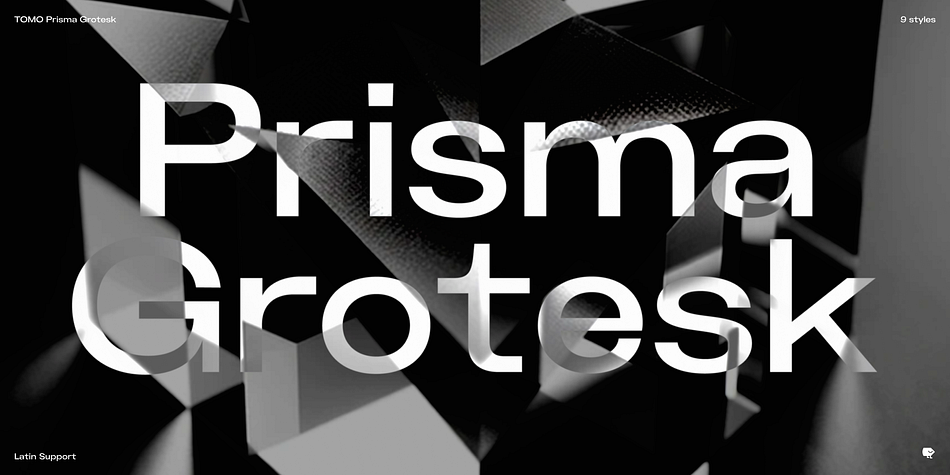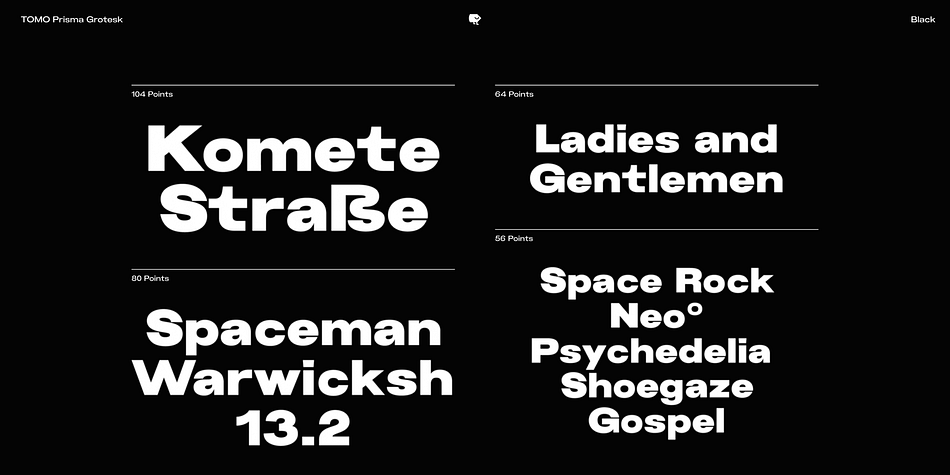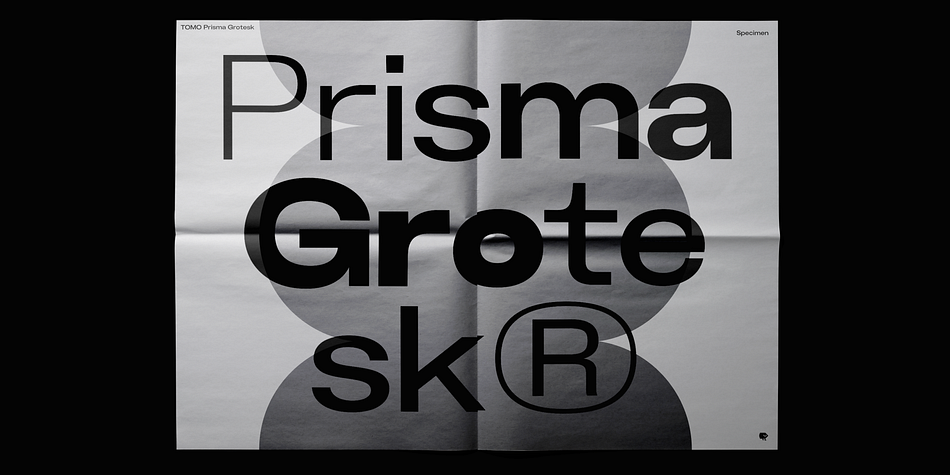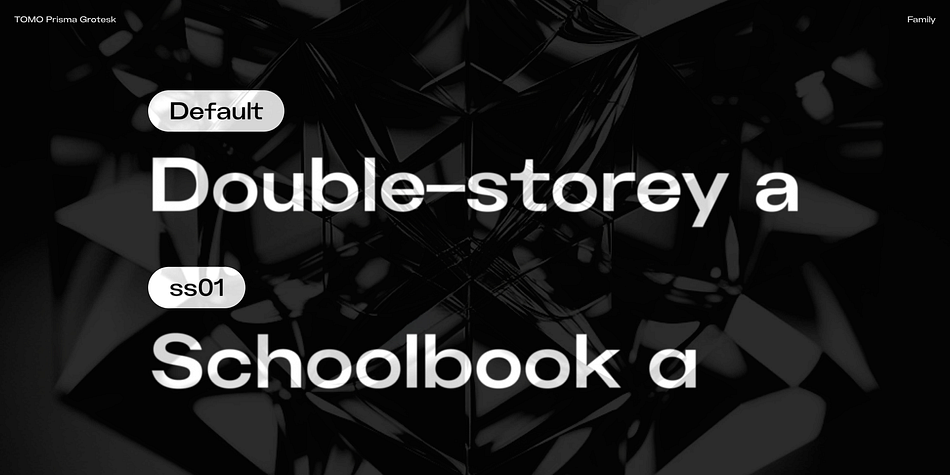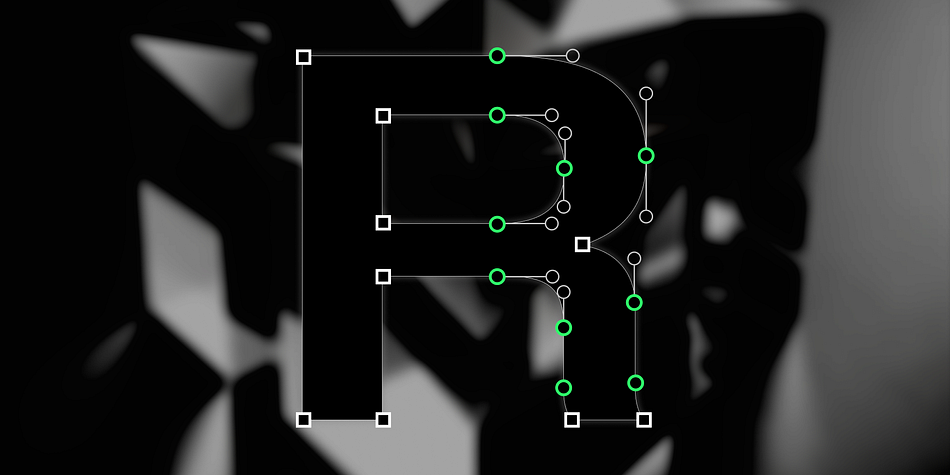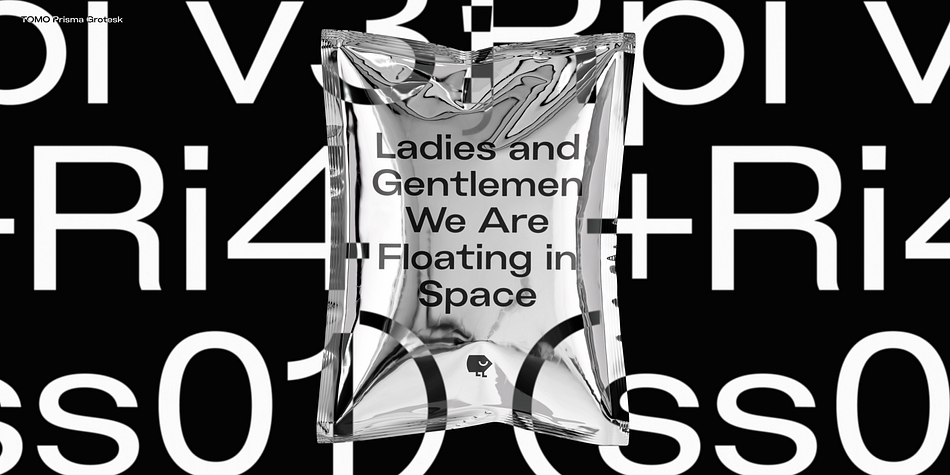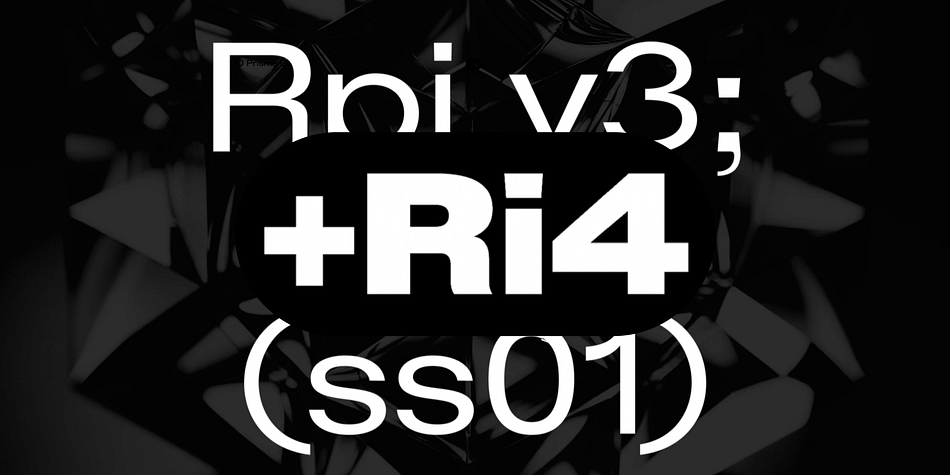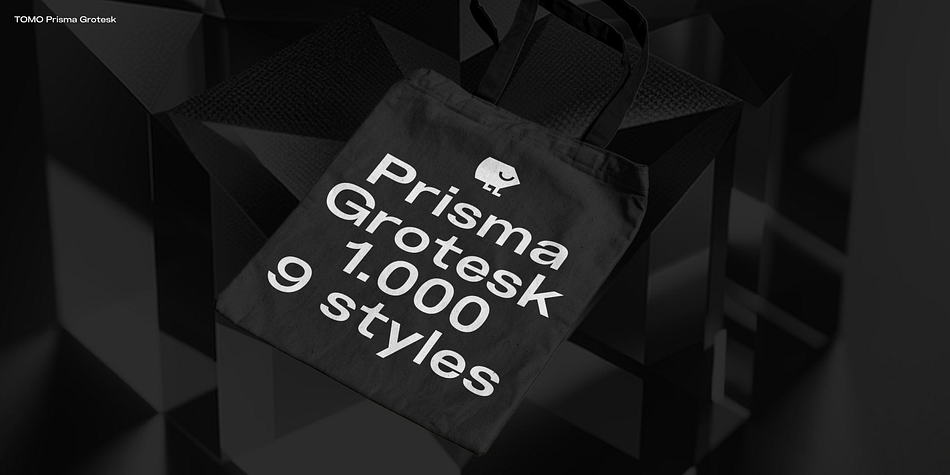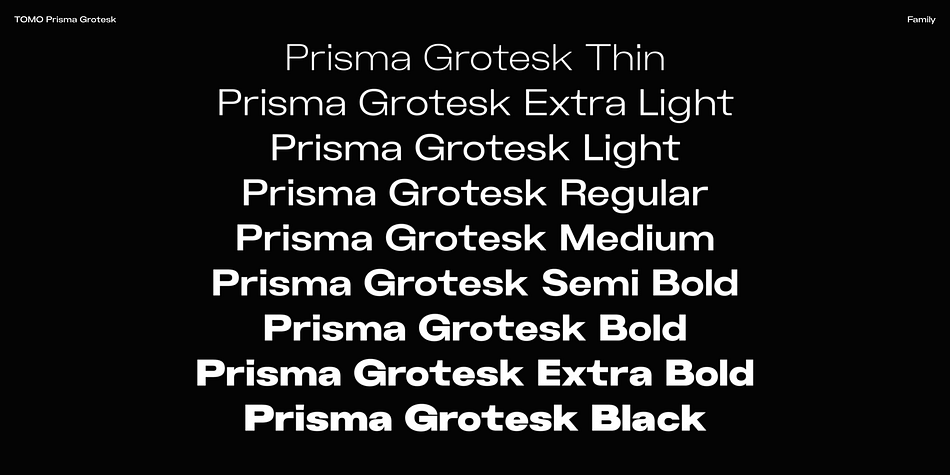
Prisma Grotesk
Prisma Grotesk is a sans serif font family. This typeface has nine styles and was published by TOMO FONTS.
Discover TOMO Prisma Grotesk, a contemporary typeface that beautifully blends elegance and functionality, making it perfect for a wide range of applications. This typeface is a polyglot of design, speaking the language of both modernity and classic taste, ideal for corporate branding and advertising. Its geometric construction and modest design lend a sense of understated sophistication.
With its sans serif styling, Prisma Grotesk is incredibly legible, suitable for everything from body text to headlines. Whether you’re crafting an editorial piece or designing a magazine layout, its neutral yet striking appearance adapts seamlessly.
Designed for the digital age, Prisma Grotesk is a neo-grotesque typeface, providing flexibility and adaptability across various media. It’s perfect for identity and package design, where a distinctive and memorable appearance is key.
In the realm of branding, Prisma Grotesk stands out with its neo-grotesque style, offering a contemporary twist on the grotesk tradition. A casual, approachable feel, suitable for both corporate and creative environments. Prisma Grotesk is not just a font but a comprehensive tool for designers seeking a reliable, elegant, and functional typeface.
Elevate your design work with Prisma Grotesk – where contemporary style meets classic elegance, and versatility meets functionality. This typeface is not just a choice; it’s a statement in design excellence.